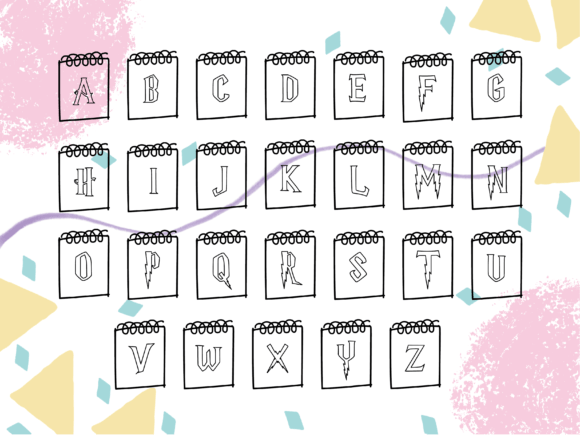
Introduction to Note-worthy Font
Do you remember that moment when you stumbled upon the perfect design resource to elevate your creative project? For many designers, it’s the little things that make all the difference. Like stumbling upon a high-quality font that speaks directly to your brand’s personality. For those who love to plan, create, and stay organized, we’re excited to introduce the Note-worthy Font – a unique dingbats font that’s about to take your journaling and scrapbooking game to the next level!
With its cleverly embedded calendar design, this font is not only aesthetically pleasing but also functional. Whether you’re a busy bee or a meticulous planner, the Note-worthy Font is the perfect addition to your design arsenal. And the best part? It’s available as a free download, complete with a transparent background, making it easy to incorporate into your creative projects.
Key Features of Note-worthy Font
- High-quality design resource with a unique, elegant style perfect for creative projects.
- Perfect for use in creative projects, such as logos, branding materials, and digital art, where a distinctive and stylish font is desired.
Honest Review: Note-worthy Font
As a designer, I’m always on the lookout for high-quality design resources to elevate my creative projects. Recently, I stumbled upon the Note-worthy Font, and I must say, it’s a great addition to my design arsenal.
Here are some things that work well for me:
- ✨ High-quality design: The font is crisp and clean, making it perfect for both digital and print projects.
- ✨ Transparent background: The transparent background option is a game-changer for designers who need to overlay text on images.
- ✨ Versatile: The font is highly versatile and can be used for a wide range of creative projects, from logos to brochures.
- ⚠️ Limited character set: The font only comes in a limited character set, which might be a drawback for designers who need to work with complex text.
- ⚠️ Not ideal for small text: The font can be a bit difficult to read when used for small text sizes, which might be a problem for designers who need to use it for headings or captions.
Overall, I’m impressed with the Note-worthy Font, and I think it’s a great addition to any designer’s toolkit. While it may have a few limitations, its high-quality design and versatility make it a valuable resource for any creative project.
Tips for Getting the Most Out of Note-worthy Font
To get the most out of Note-worthy Font, use it in combination with other design elements, such as images and graphics. Experiment with different font sizes, colors, and styles to create a unique and eye-catching design. Additionally, use the font in conjunction with a transparent background to create a clean and modern look.
Note-worthy Font is commonly used for creative projects, such as logos, infographics, presentations, and documents. It’s also a great choice for designers who want to create high-quality designs with a professional look.
Can I use Note-worthy Font with a transparent background?
Yes, Note-worthy Font supports transparent backgrounds. When you use it with a transparent background, you can create a beautiful, high-quality design that looks great on any background. Simply set the background color to transparent in your design software, and Note-worthy Font will display correctly.